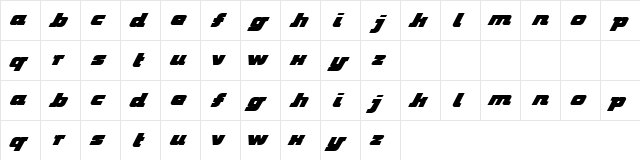
sporty Regular
Design Context for sporty Typeface
sporty has the bold swagger of sports branding: strong, assertive letterforms designed to dominate headlines and jerseys alike.
Built for sports team identities, athletic apparel, event posters, and high-energy promotional material.
Font Pairing: Use alongside a condensed or geometric sans for supporting copy — keep the pairing bold, functional, and free of ornament.
Pro Tip: sporty thrives on contrast — try it large, bold, and tight against a clean background for maximum visual impact.